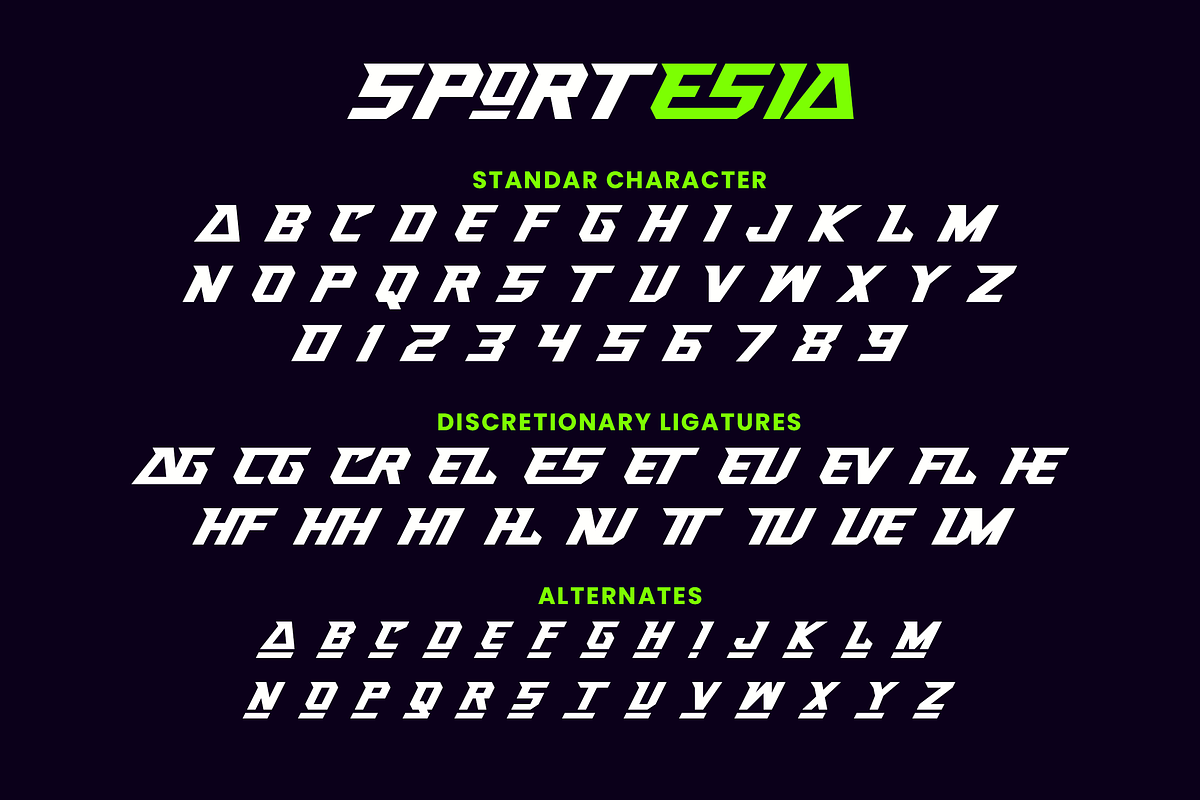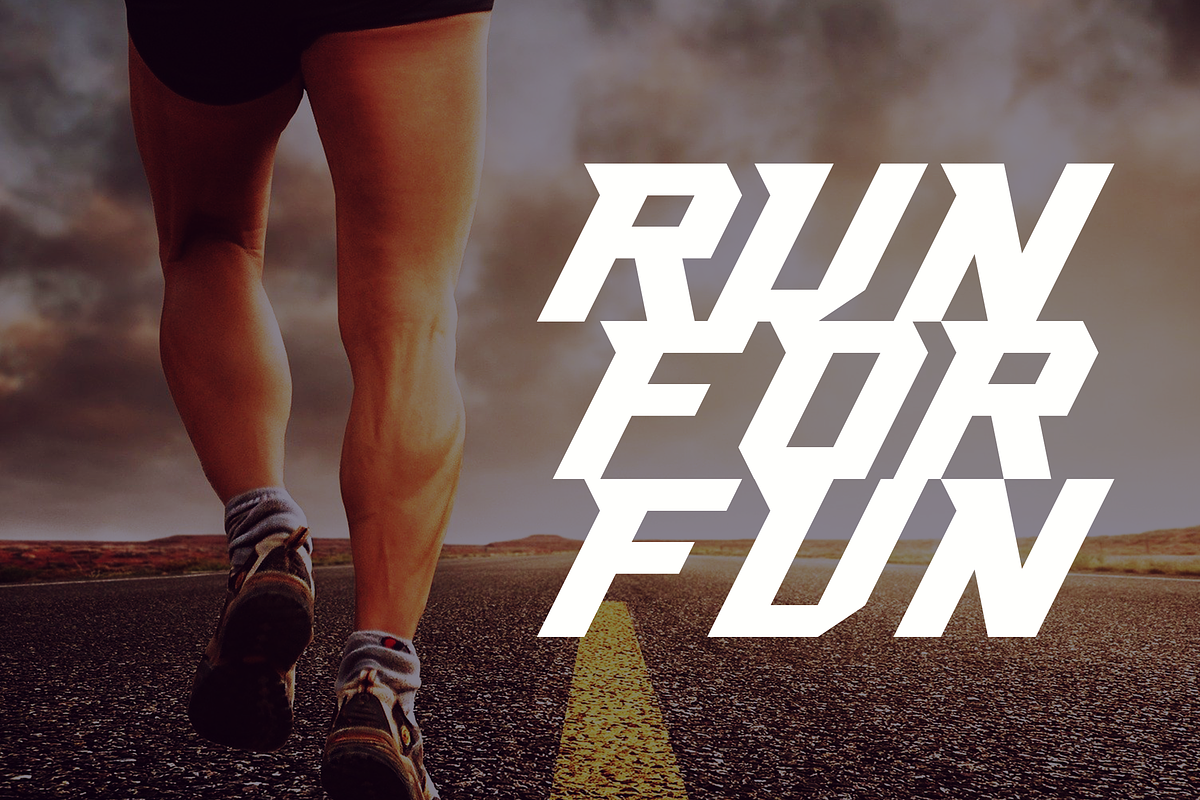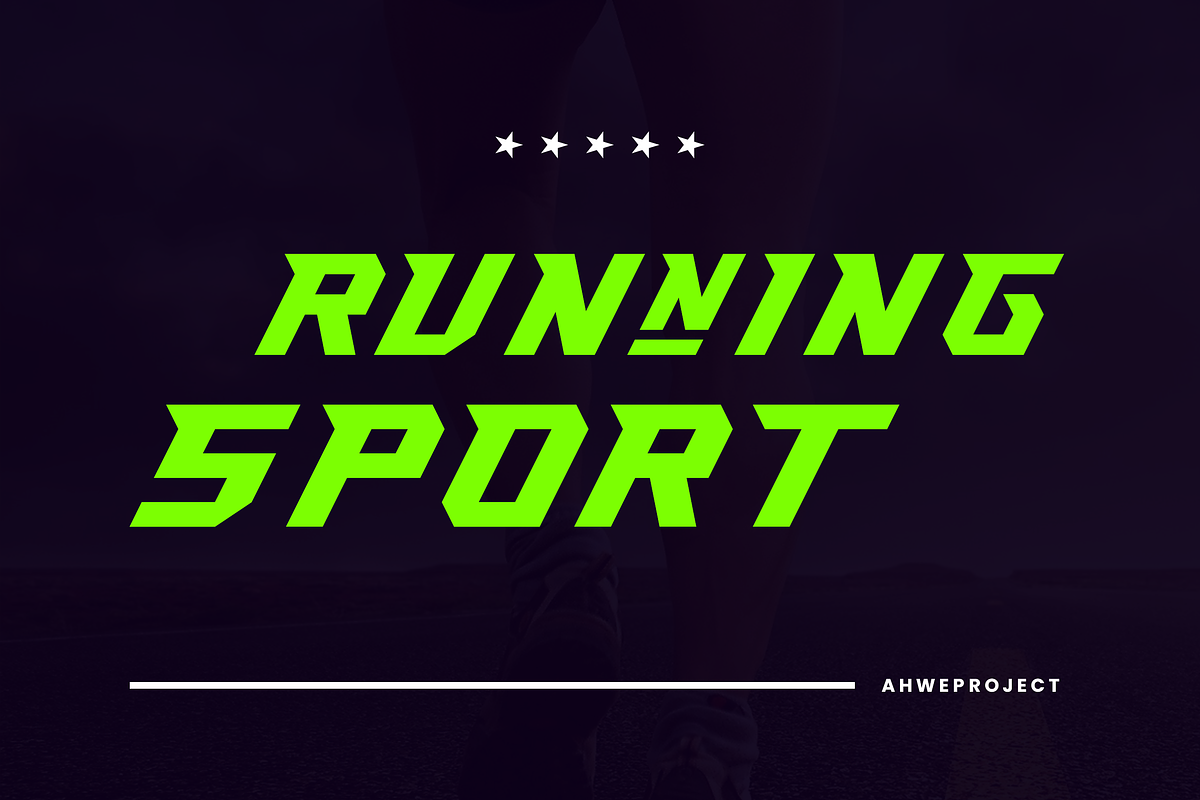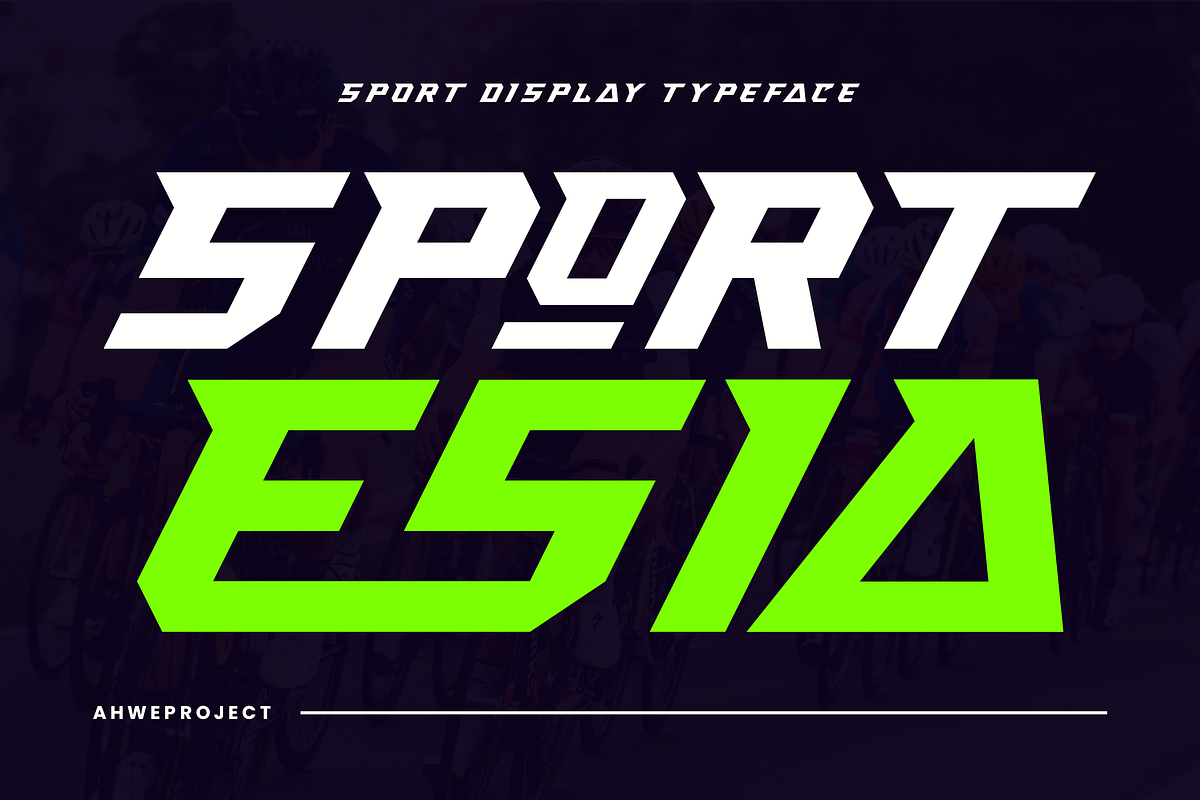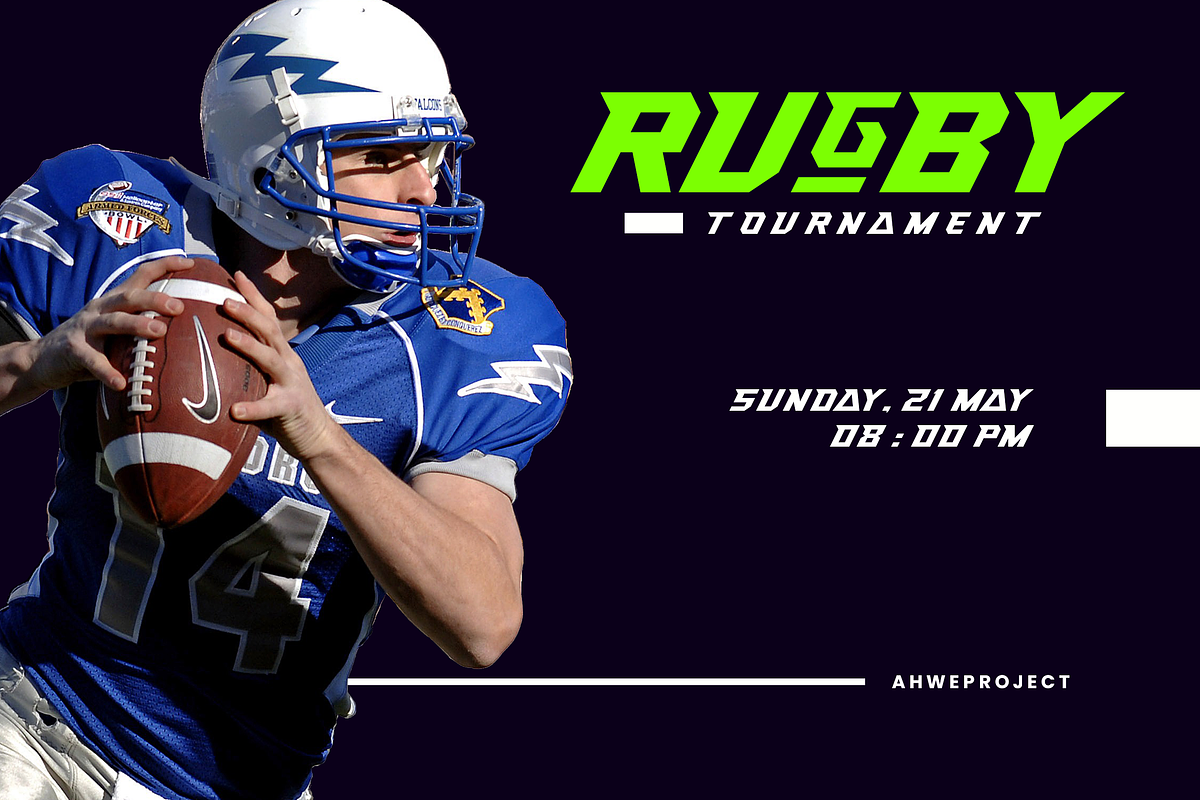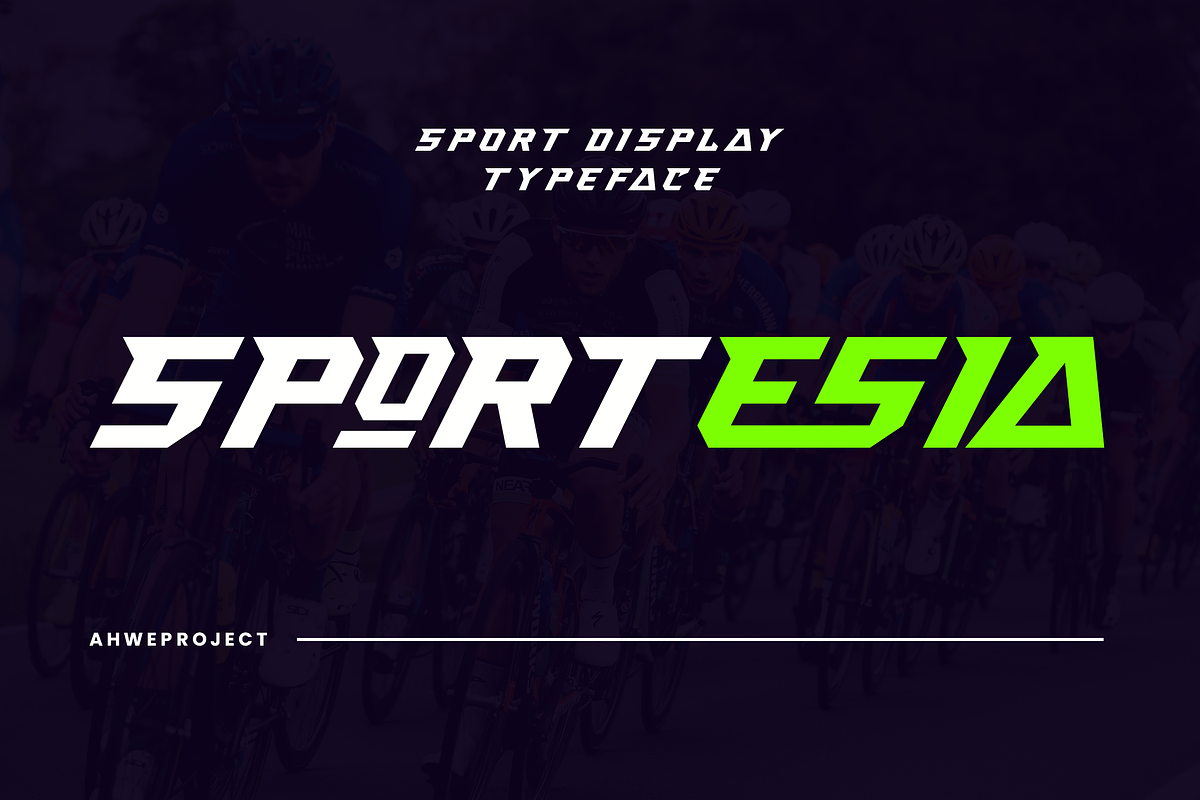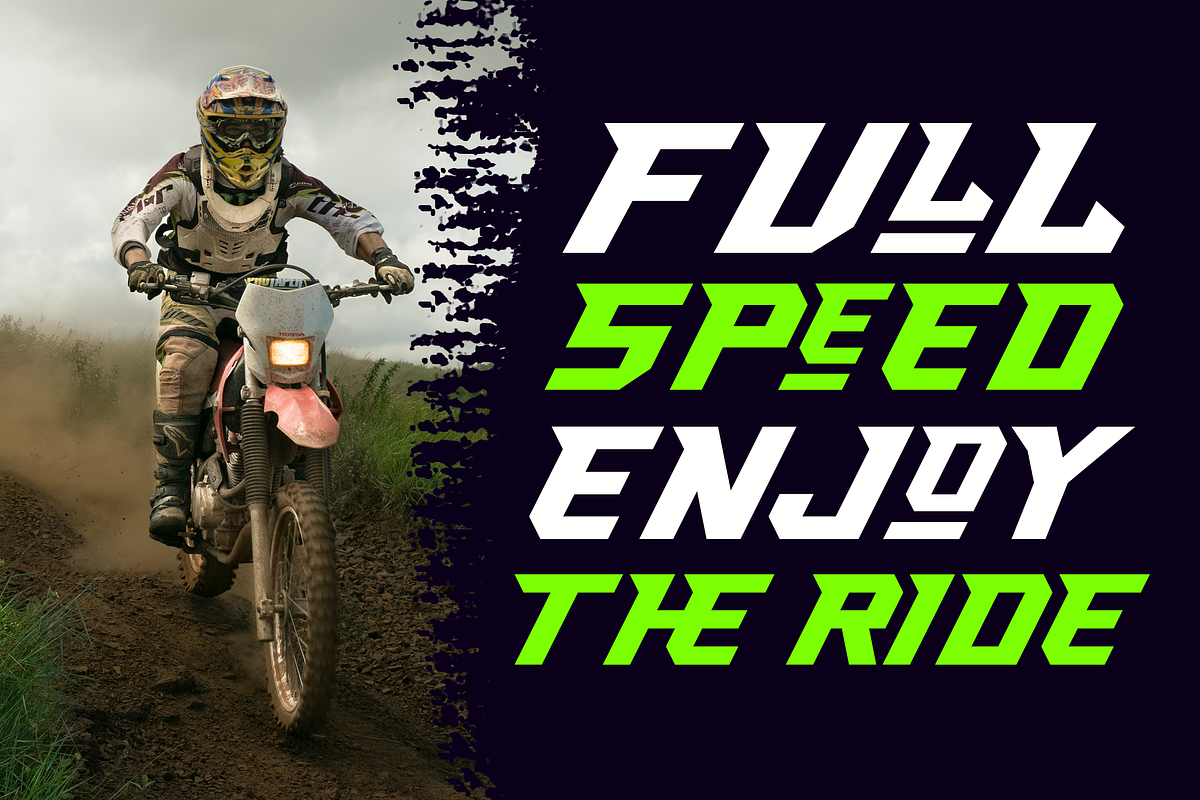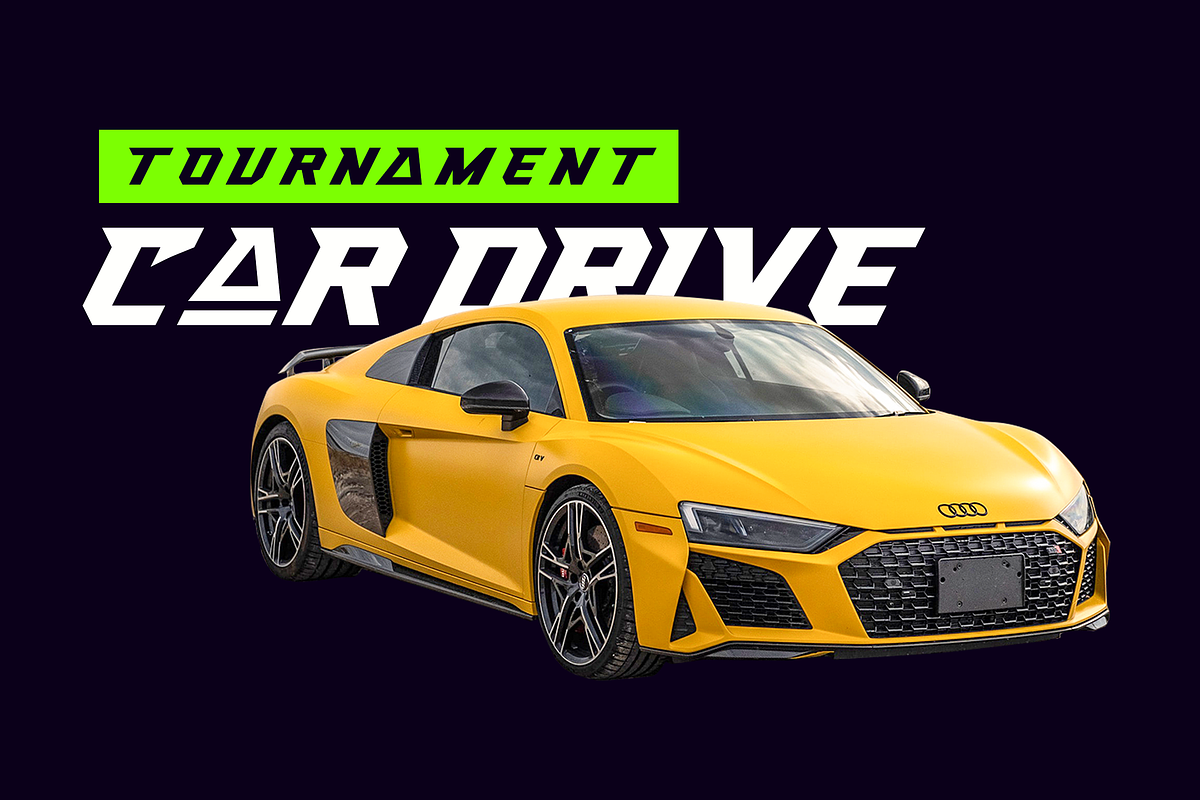
Sportesia - Sport Display
Sportesia is a modern and techno-looking display font. It is the perfect font for any sport or racing-themed projects, such as logos, posters, games, product designs, and much more. Sportesia is PUA encoded, which means you can access all the glyphs and swashes with ease!